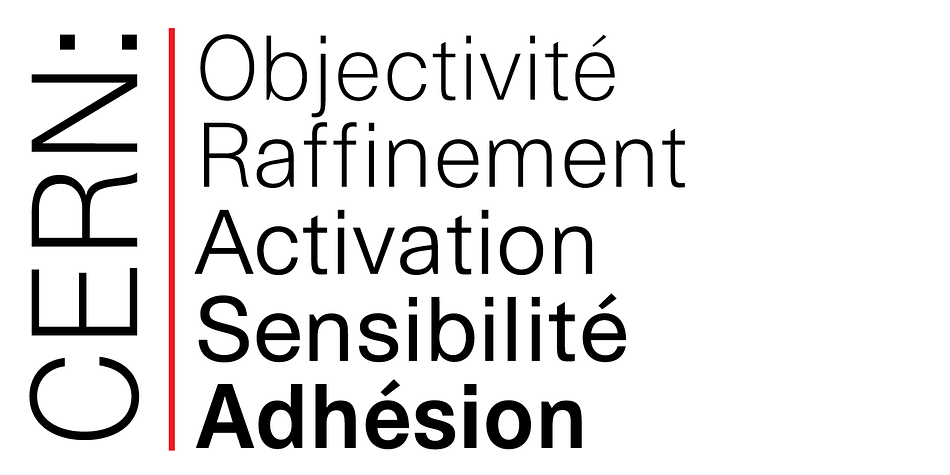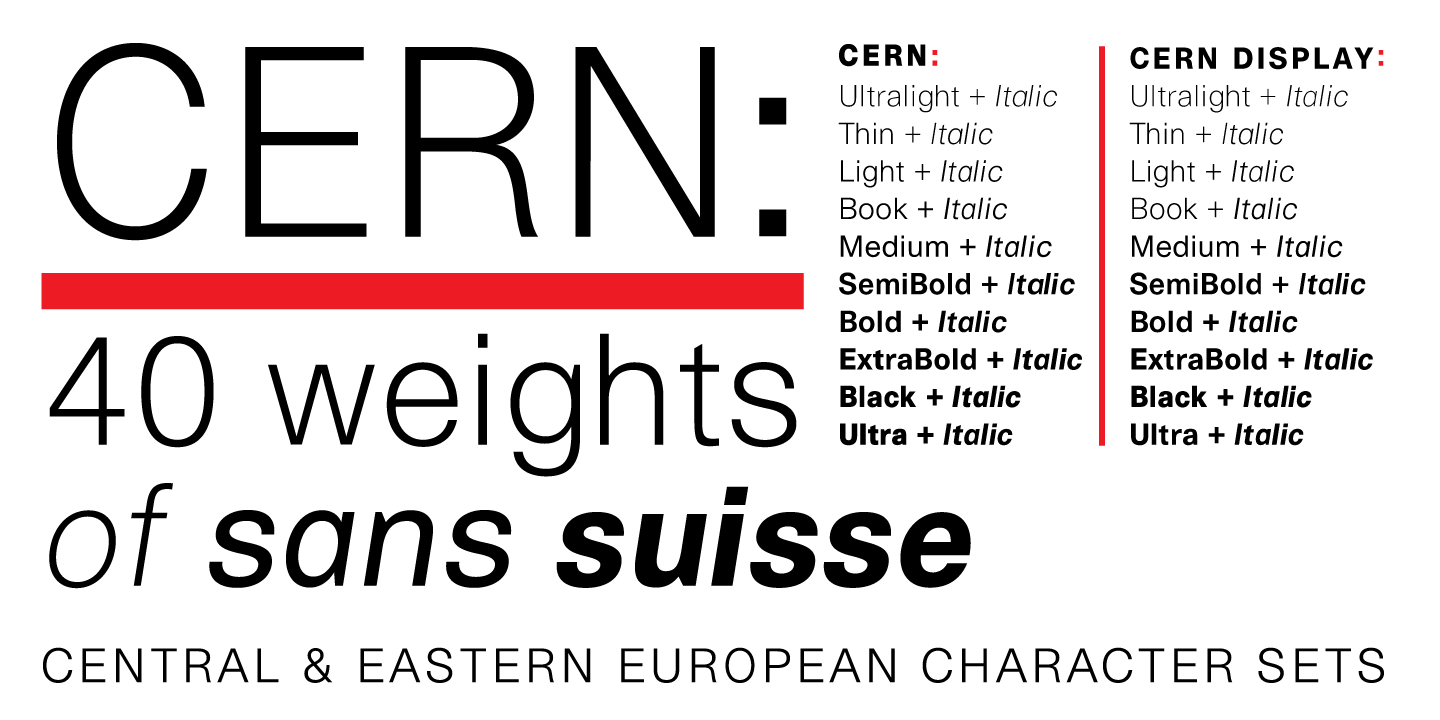
Cern
Cern is a sans serif font family. This typeface has forty-two styles and was published by Wordshape.
Cern is a family of 40 weights of neutral, yet formally nuanced grotesk typefaces that takes inspiration from Helvetica, Akzidenz Grotesk, Univers and the original metal types from Switzerland, yet had a slightly larger x-height for more pronounced legibility.
Each weight is designed to be highly readable in print and on-screen.
The italic variations are true italics, having a single-storied italic a and have been designed for smooth, fluid reading and text-setting.
Lovingly spaced, the Cern family works equally well for text typesetting and for display design work.
The entire family is comprised of a range of weights and a matching display family that features rounded terminals for large-scale display work.
Cern is a a forty font family.
Cern is a family of 22 weightscuts of neutral, yet formally nuanced grotesk typefaces that takes inspiration from Helvetica, Akzidenz Grotesk, Univers and the original metal types from Switzerland, yet had a slightly larger x-height for more pronounced legibility. Cern is now available as a set of 2 variable fonts (Regular and Italic) that include the Cern type family.
Each weight is designed to be highly readable in print and on-screen. The italic variations are true italics, having a single-storied italic a and have been designed for smooth, fluid reading and text-setting. Lovingly spaced, the Cern family works equally well for text typesetting and for display design work.
The entire family is comprised of a range of weights and a matching display family that features rounded terminals for large-scale display work.